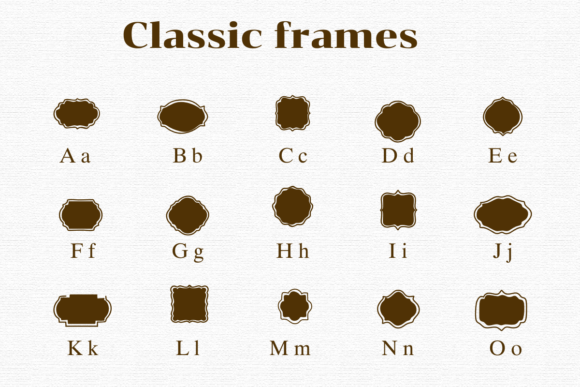
Classic Frames Font
Classic Frames is a dingbat font that features a variety of decorative borders and frames. Instead of letters and numbers, each character key displays a unique design element that you can use to add stylish borders and accents to your projects. It’s perfect for adding an elegant touch to invitations, cards, and other creative works.